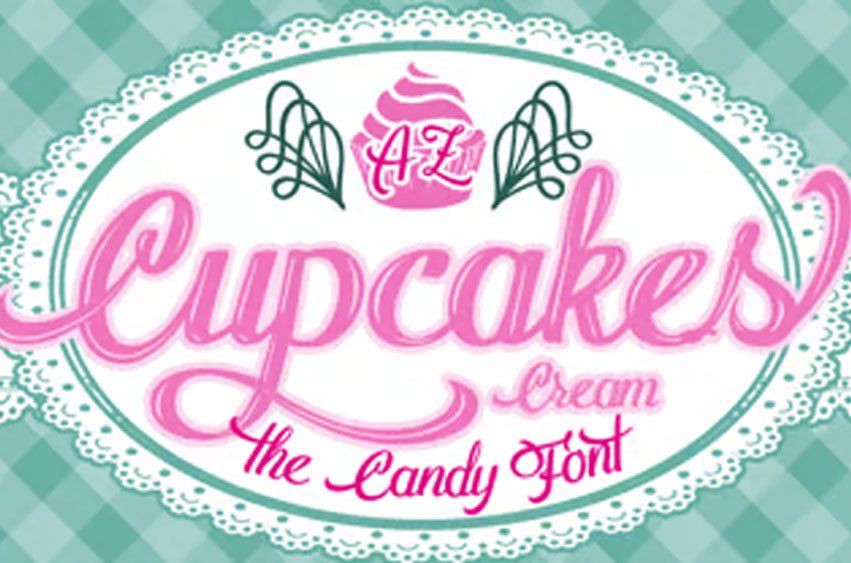
AZ Cupcakes Font
AZ Cupcakes Font is a special Font for Cupcakes bakery Designs and for all Fans of Cupcakes.
It comes in Creamy Design an with many sweet and sugar Graphics.